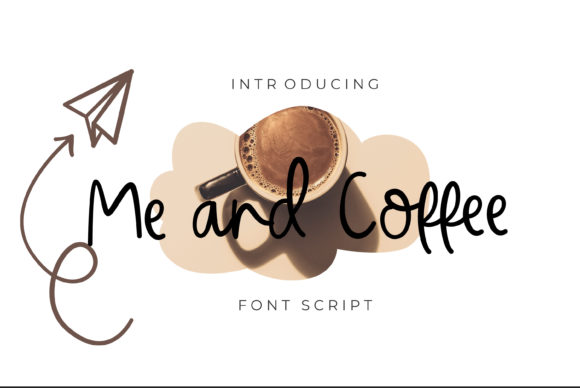
Dive into the world of Me and Coffee, an enchanting handwritten font that captures the essence of joy and playfulness. With its charmingly quirky strokes and an infectious energy, this font will transform your designs into a captivating visual feast. Discover the boundless possibilities of Me and Coffee and let your creativity soar!
Unlock the door to a world where imagination knows no bounds, where your designs come alive with a playful spirit and an infectious charm. Me and Coffee is the perfect font for those seeking a touch of whimsy, a burst of laughter, and a dash of sheer delight in their design projects. Unleash your inner artist and let this font guide you on a creative adventure that will leave a lasting impression.
Picture the smiles on the faces of your audience as they encounter your designs adorned with Me and Coffee. Its unique and captivating style is sure to ignite a spark of joy, leaving them with a memorable and positive experience. Whether you're crafting eye-catching social media posts, designing heartwarming stationary art, or creating magical website designs, Me and Coffee will leave an indelible mark on their hearts and minds.
Say goodbye to the mundane and embrace the extraordinary with Me and Coffee. Step into a realm where creativity thrives, where your designs dance with joy and energy, and where every project becomes a masterpiece. Immerse yourself in the world of Me and Coffee and unlock a treasure trove of endless creative possibilities.